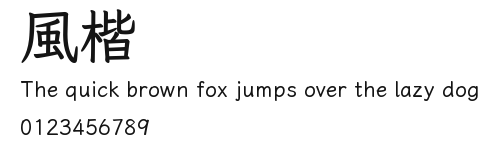
• Font Name: 風楷
• Font ID: FengKai Bold:Version 1.00
• Full Font Name: FengKai Bold
• Version: Version 1.00;October 28, 2021;FontCreator 13.0.0.2613 64-bit
• PostScript Name: FengKai-Bold
• Character Count: 26631
About 風楷.ttf
風楷.ttf is a modern, elegant sans-serif font designed for ultimate readability and visual harmony. Perfect for branding, headlines, web design, and print materials.